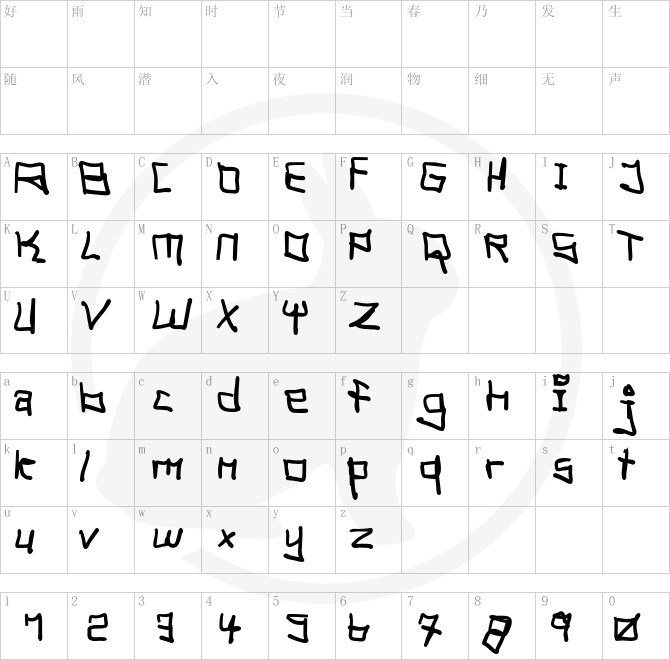
- Font Name:Tag Hand Graffiti Trash
- Subfamily:ManuelViergutz: Tag Hand Graffiti Trash Fat: 2013
TagHandGraffitiTrash-Fat.otf is a very beautiful artistic font, TagHandGraffitiTrash-Fat.otf is widely used in the design and printing of various books and pictures,TagHandGraffitiTrash-Fat.otf has a strong visual impact,TagHandGraffitiTrash-Fat.otf is a commonly used font in newspapers, magazines and books, and is used in posters, e-commerce Poster design, store design, logo design, font design and other fields.TagHandGraffitiTrash-Fat.